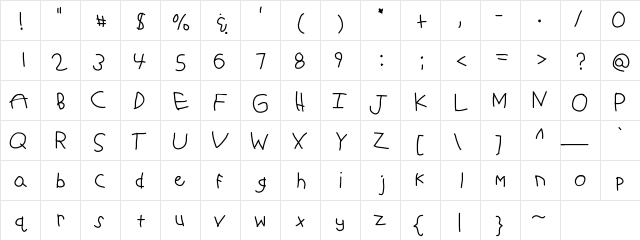
KBSchoolyardPranks Medium
Design Context for KBSchoolyardPranks Typeface
KBSchoolyardPranks is a composed and adaptable typeface that performs quietly and consistently across a wide range of design contexts.